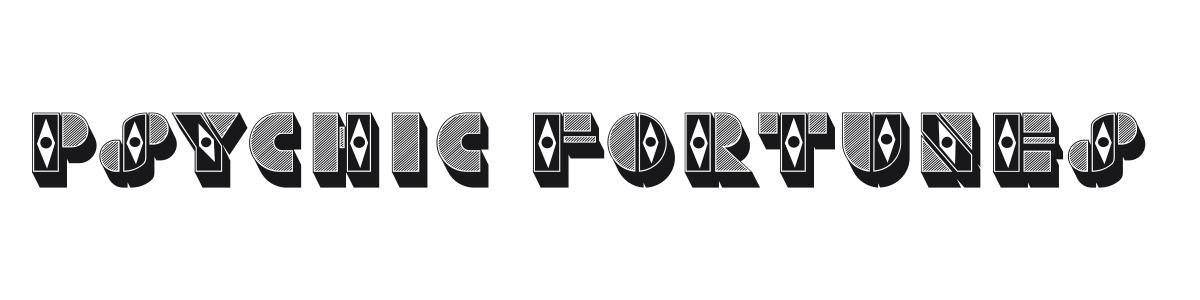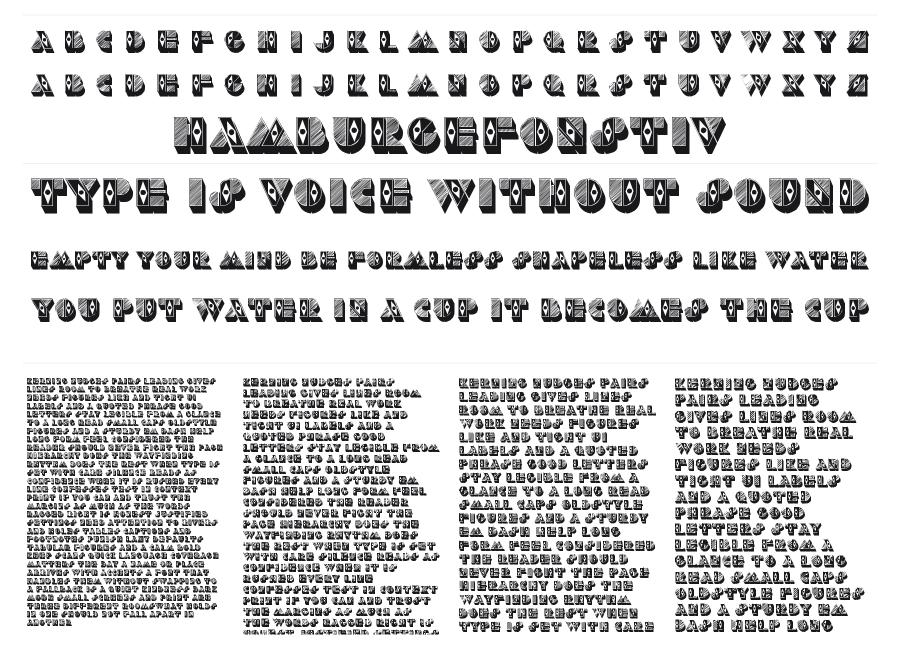
Psychic Fortunes
Psychic Fortunes is a bold geometric display font where every character is packed with dense op-art patterns, diamond shapes, and eye motifs that give it a hypnotic, almost hallucinatory quality. The heavy, wide letterforms provide a strong silhouette while the interior texture references vintage carnival signage, occult illustration, and psychedelic design. It commands attention at large sizes and brings immediate personality to posters, album art, and event graphics.